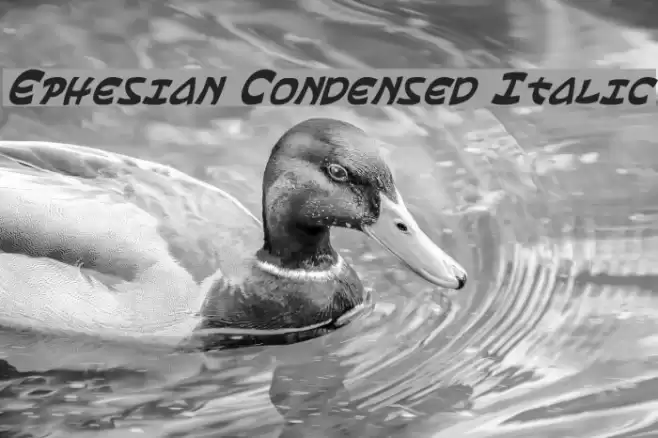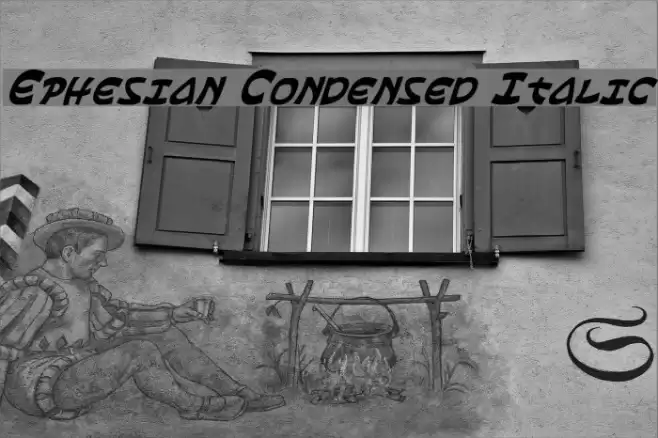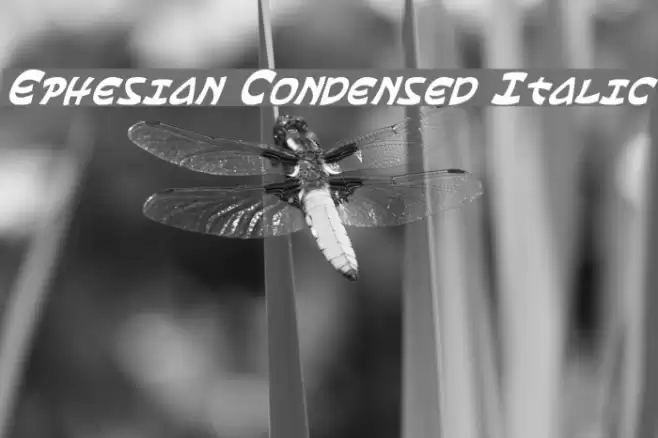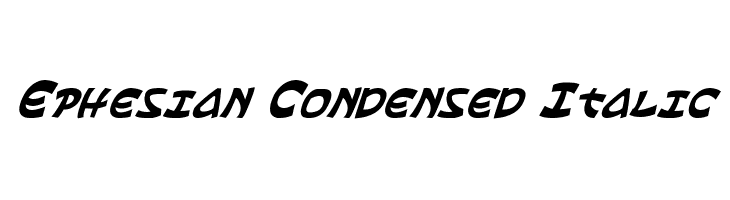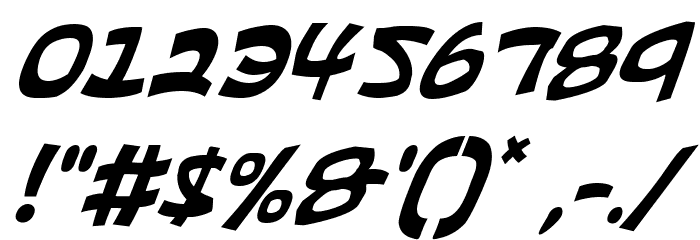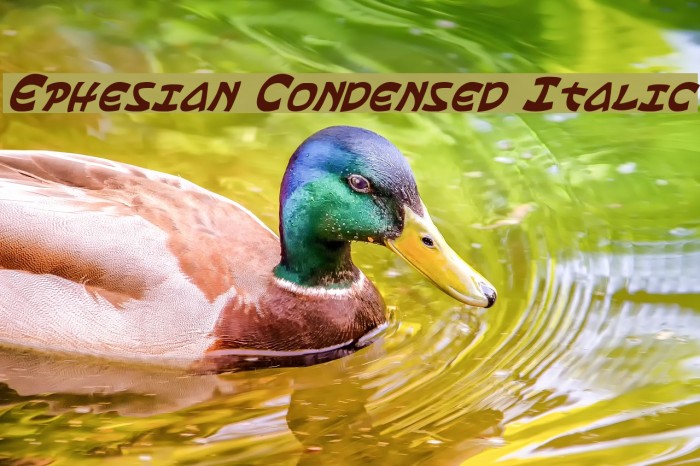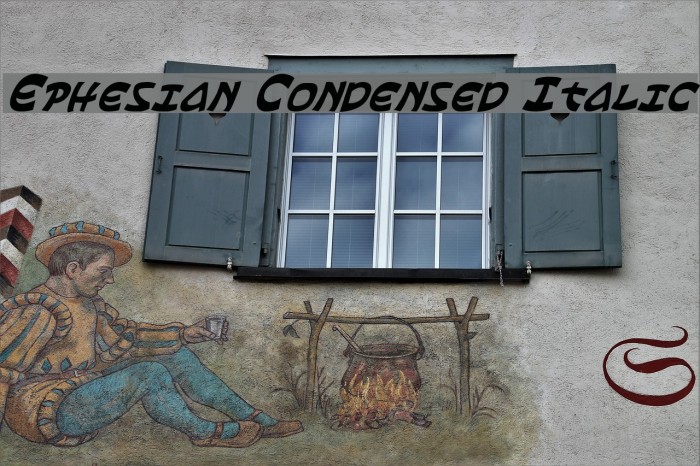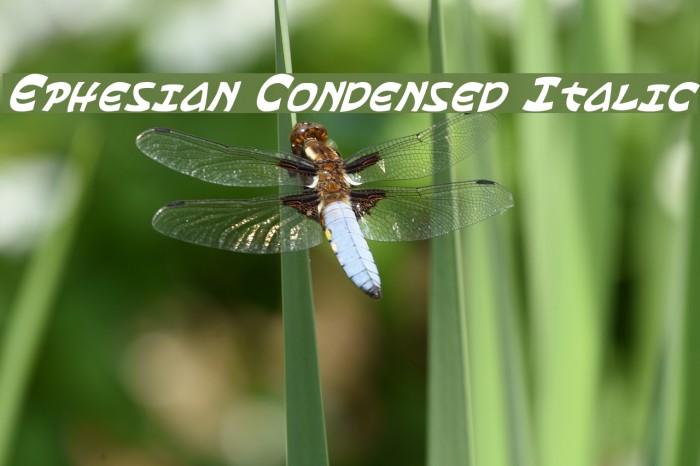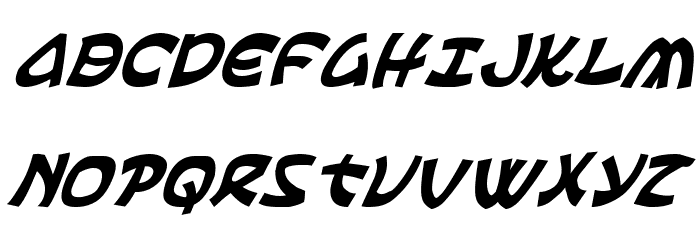
Ephesian Condensed Italic Font
Ephesian Condensed Italic Description
This font features a dynamic and energetic style with a condensed and italicized form. The characters are bold and slightly slanted, giving a sense of movement and speed. The strokes are thick and consistent, providing a strong visual impact. The overall design is modern and expressive, making it suitable for attention-grabbing headlines and creative projects. The letters are closely spaced, enhancing the compact appearance. The numbers and special characters maintain the same bold and italicized style, ensuring uniformity across all glyphs.
A bold, condensed, and italicized font with a dynamic and modern style from Crazy fonts.
- Proposed Projects: Ideal for sports branding, dynamic posters, and modern advertising campaigns.
- Character Spacing: Tight